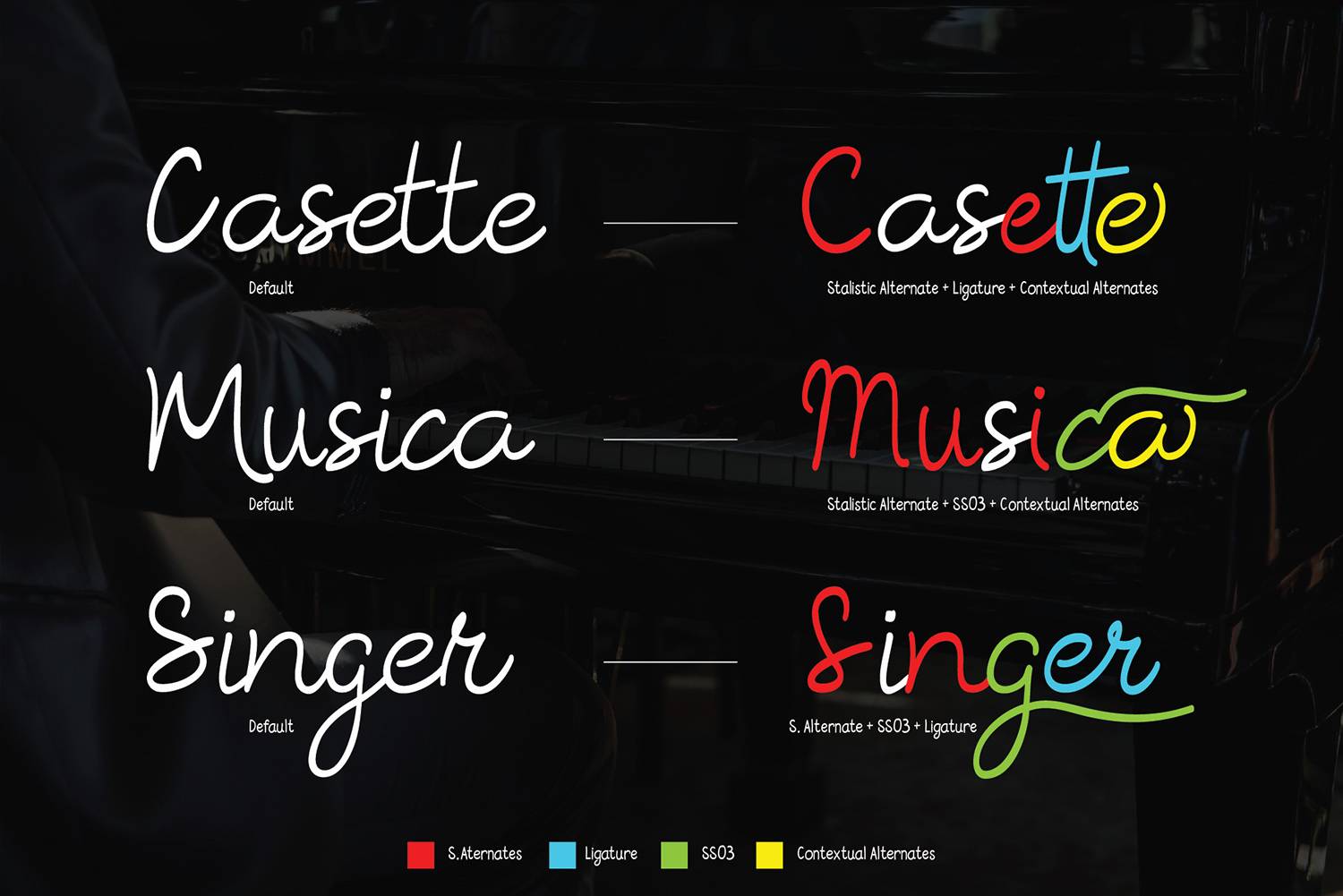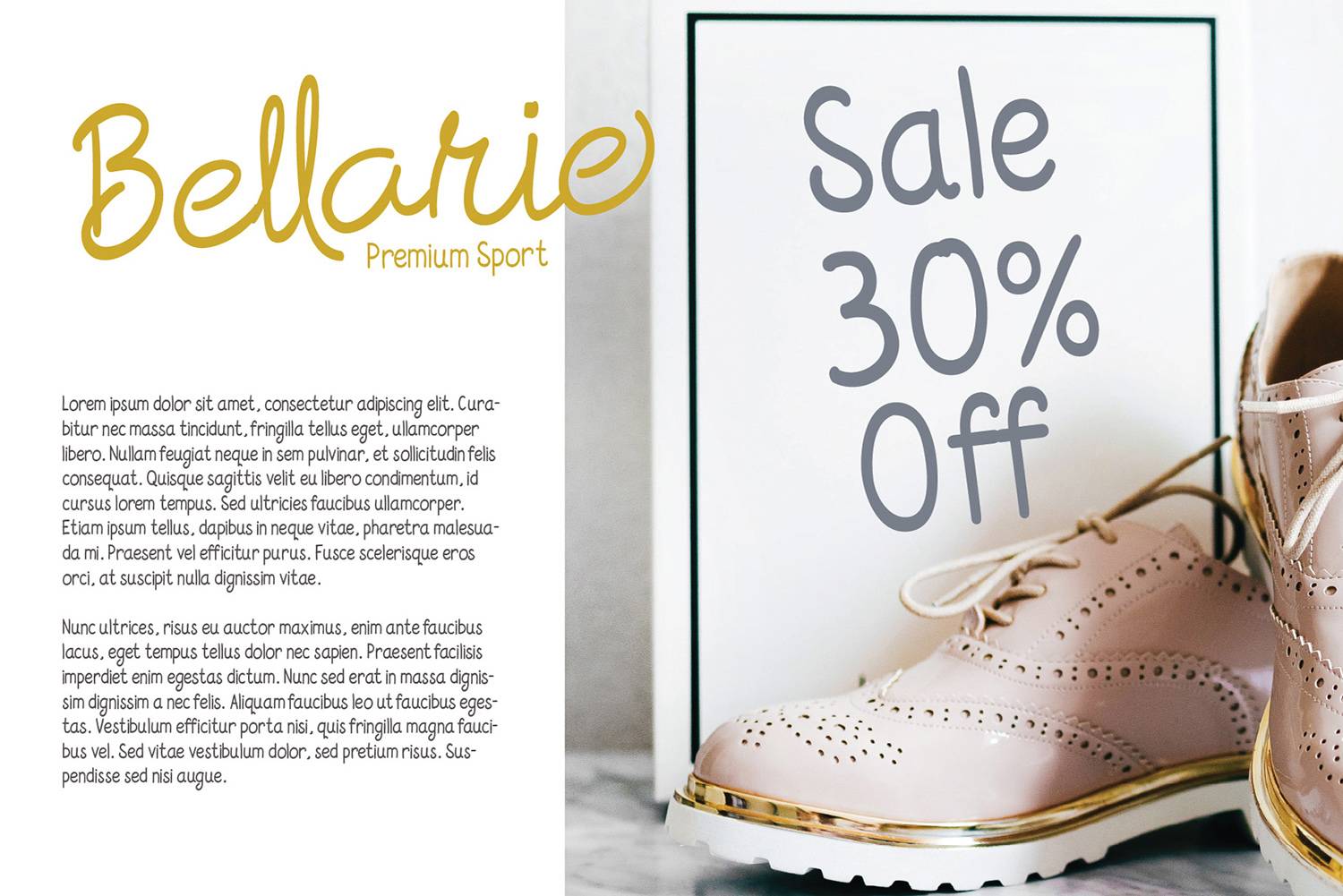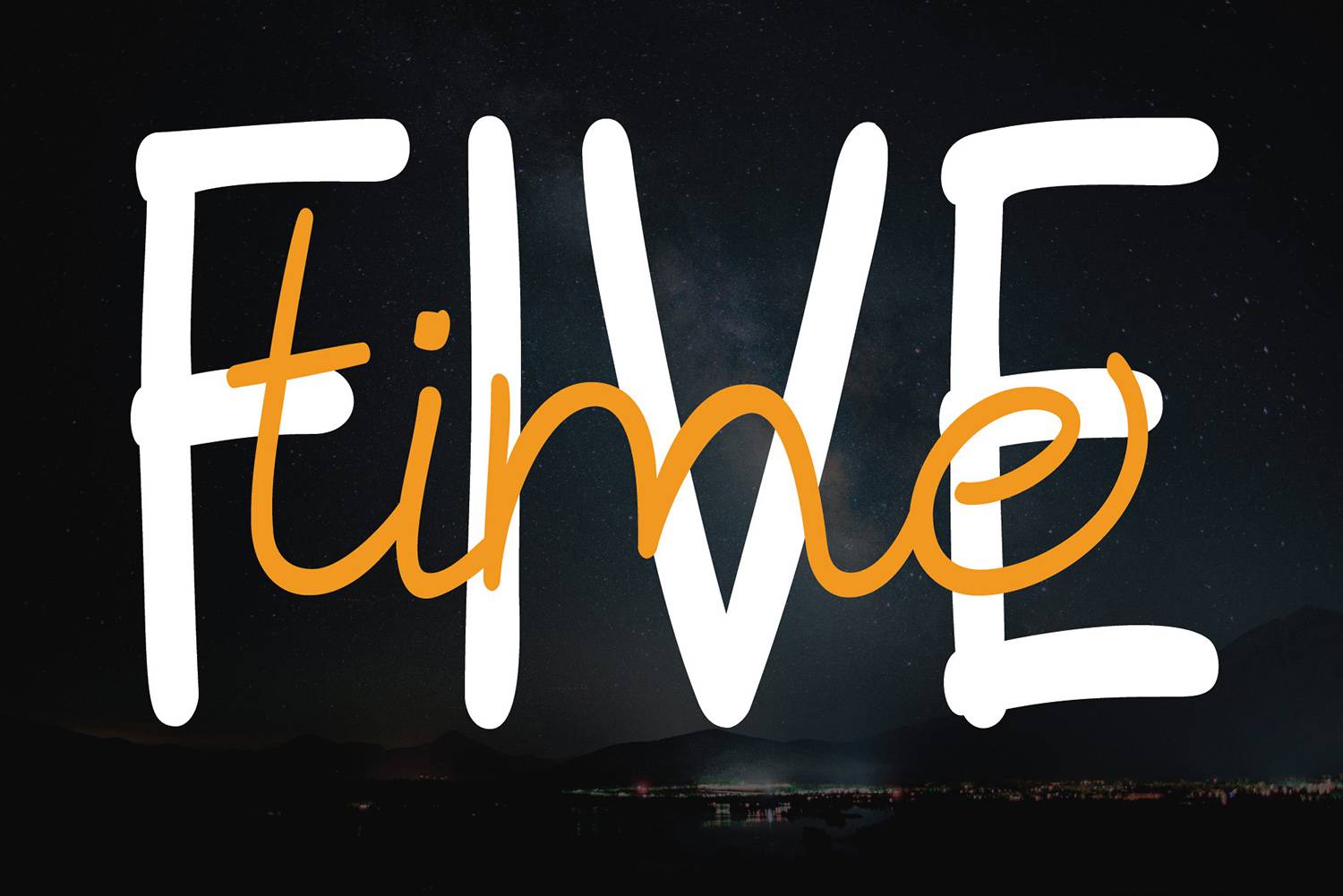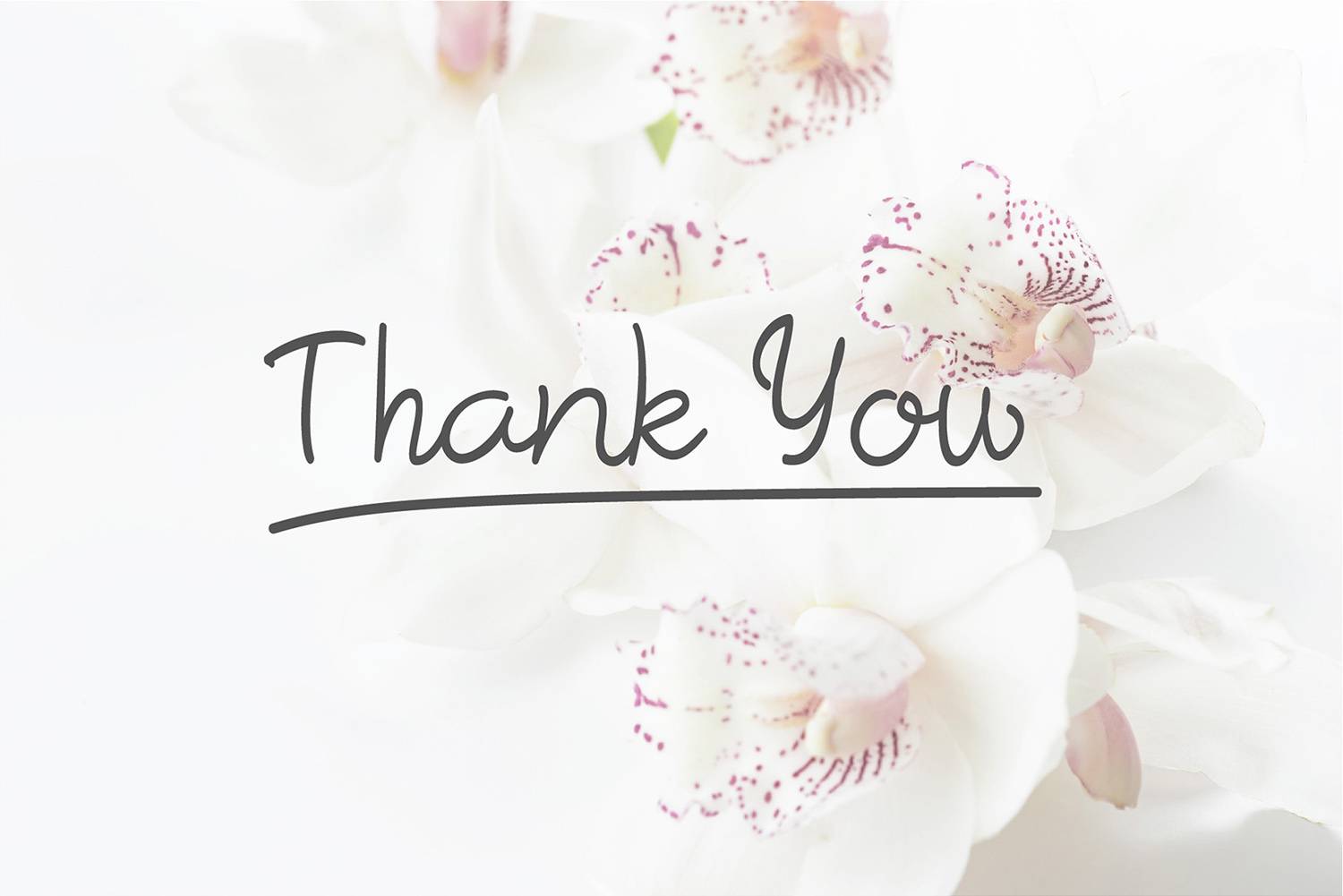
Rosella Sans is a playful and casual sans serif font with a hand-drawn feel, featuring tall, narrow letterforms and smooth, rounded strokes that create a friendly and approachable vibe. Its informal style and clear legibility make it ideal for creative projects, children’s content, and branding that aims to convey warmth and personality. This font works well in headlines, invitations, and packaging where a lively, personal touch is desired.
Rosella Font
About Rosella Font
| Font family | Rosella Font |
| Release date | 2017-11-12 |
| Designer | Lukman Hidayat "Viaction Type.Co" |